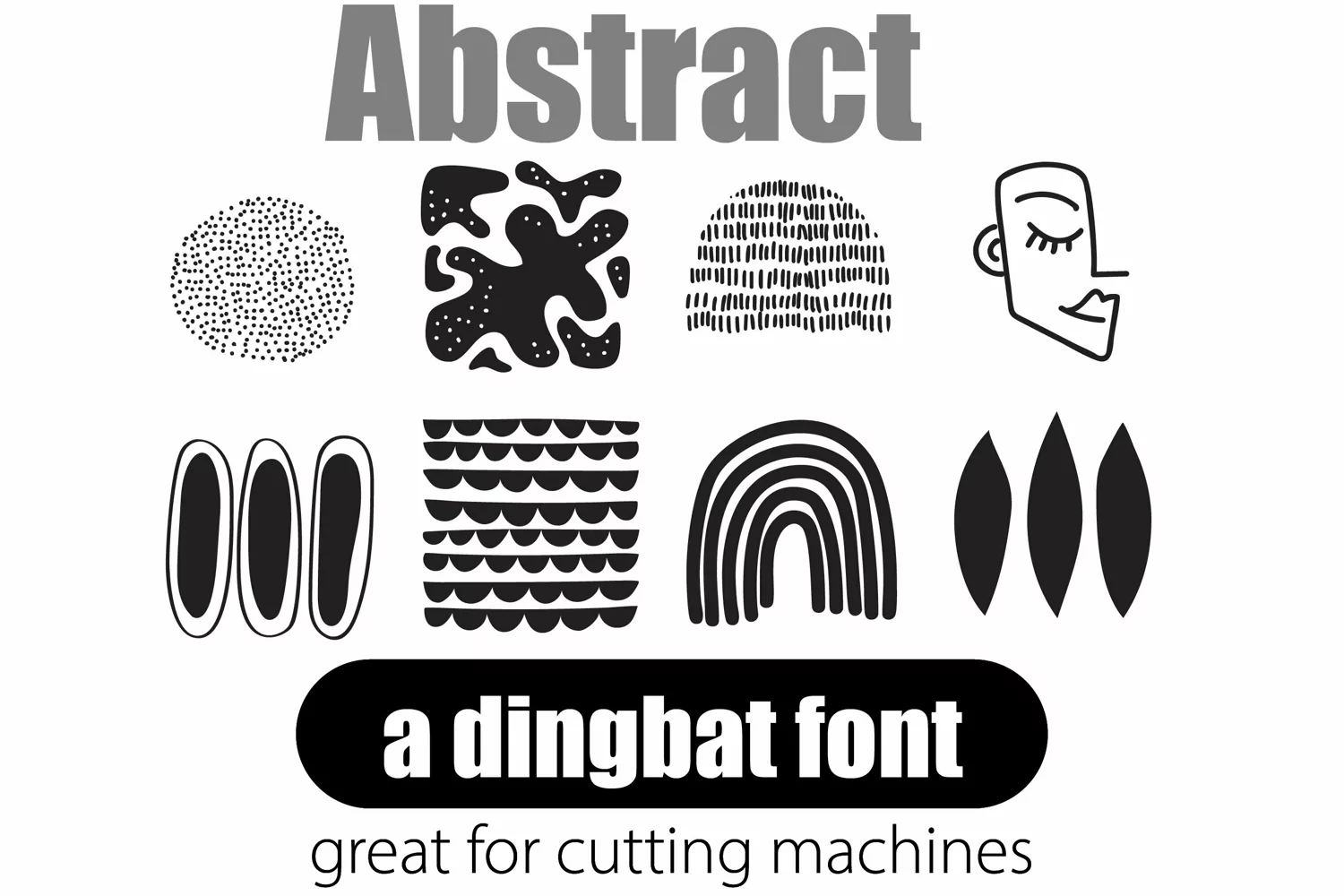
There are two dingbat fonts in this Mondern bundle. One has modern Scandinavian designs white the other sports modern abstract. Each has at least 26 glyphs. Perfect for vinyl and cutting machines!